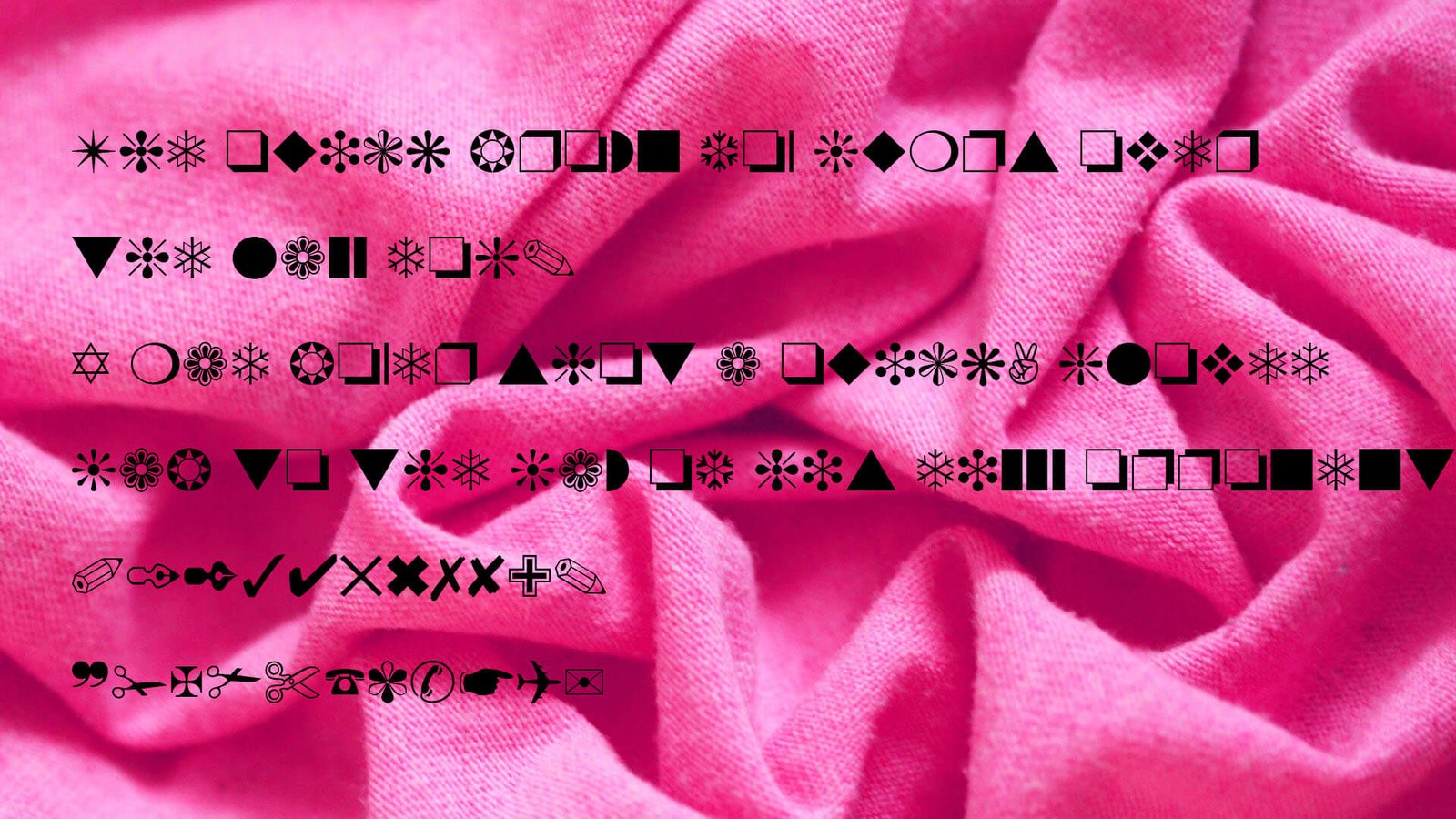
Zapf Dingbats font is one of the most famous typefaces from dingbat typefaces. Its designer is Herman Zapf. Internation Typeface Corporation published this font and was designed in 1978.
Zapf is a very famous designer who created a minimum of 1000 sketches of signs and symbols in 1977. This font has dingbats from those signs and symbols.
Zapf Dingbats Font Family
It contains a subset of 360 symbols, ornaments, and typographic elements from over 1200 designs of signs and symbols based on the original design. This font has widely used dingbats due to which this font is very much popular and famous to use.